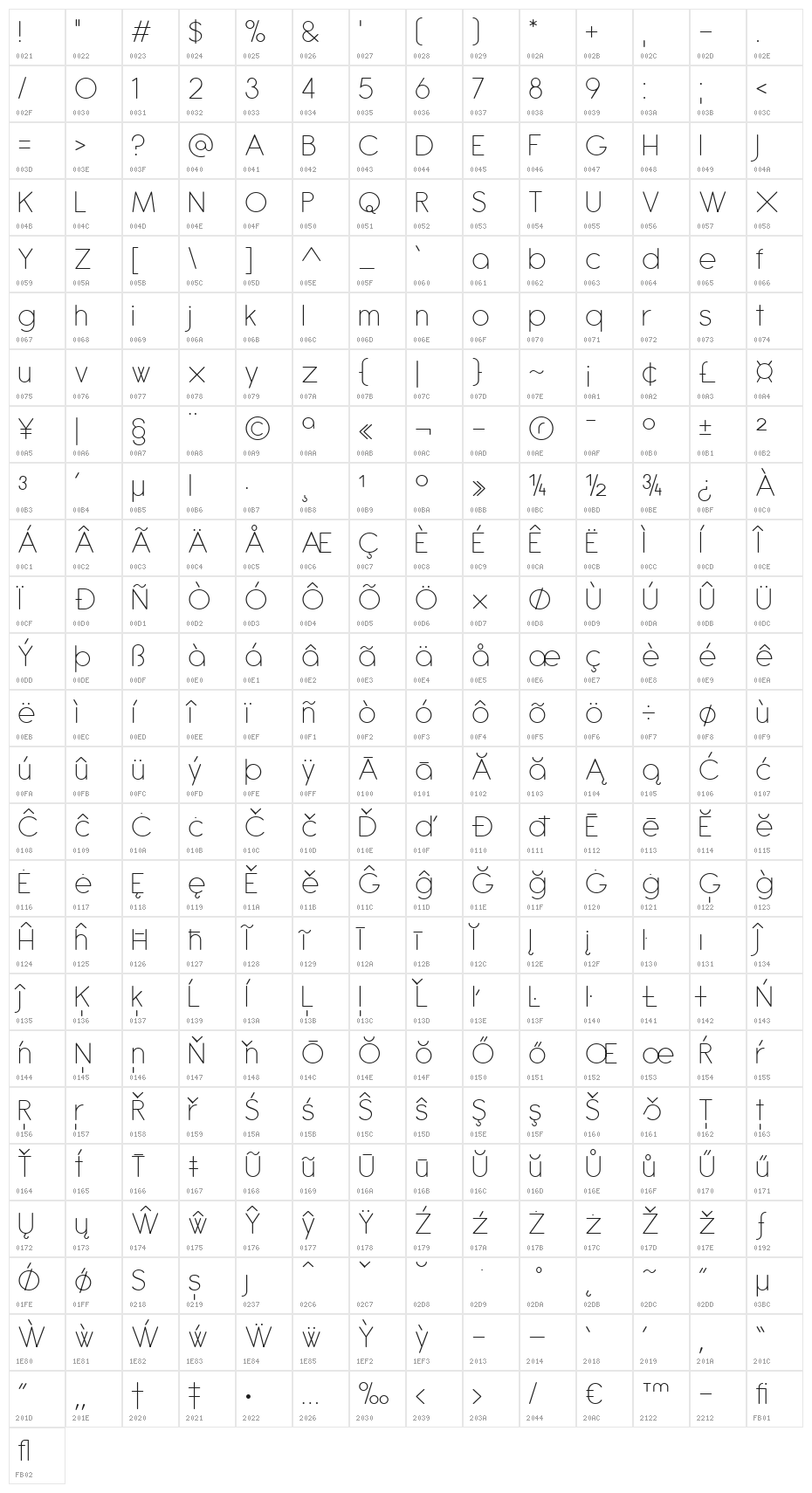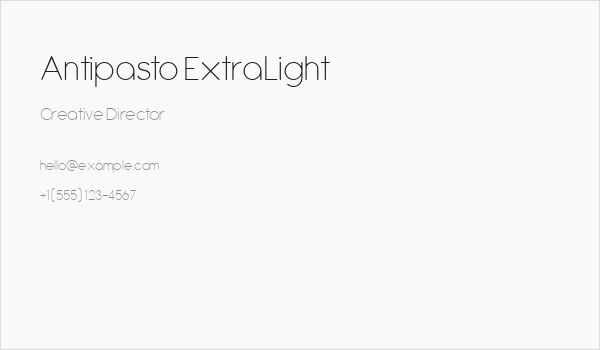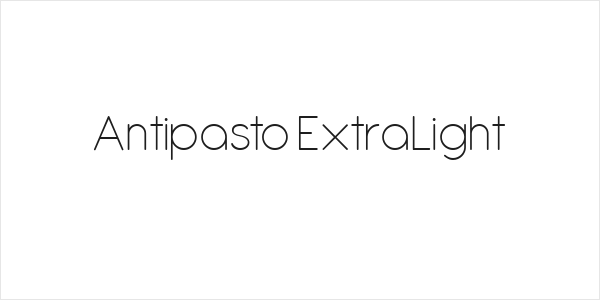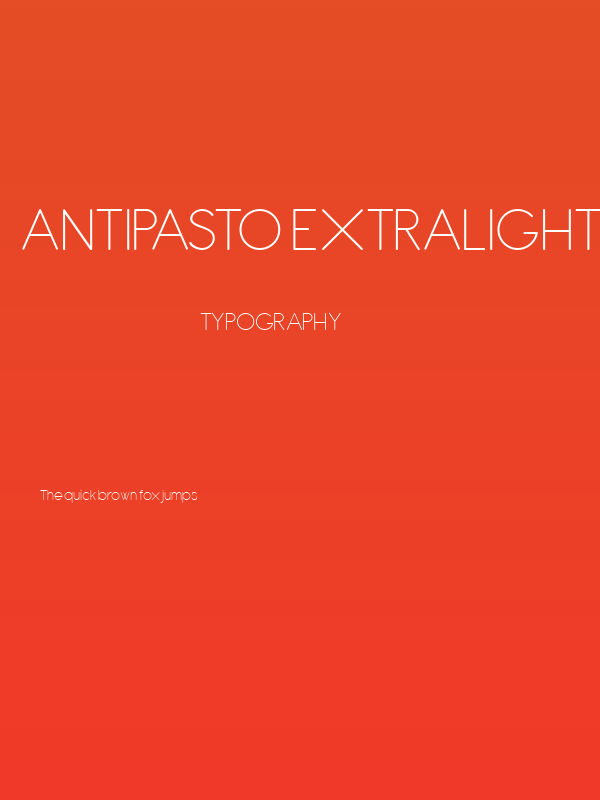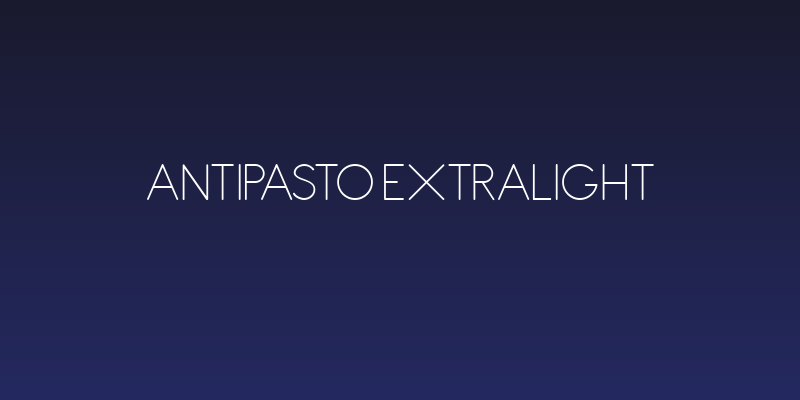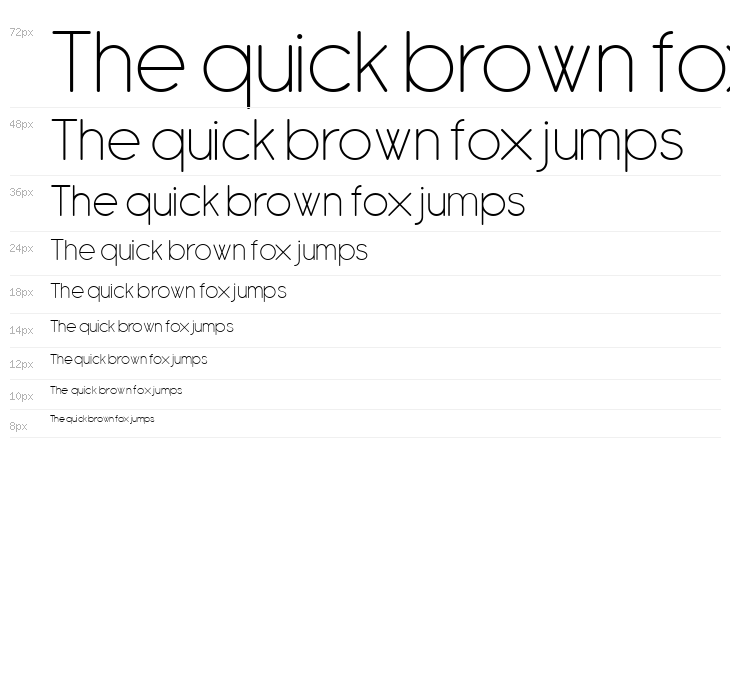
Antipasto ExtraLight Font
Antipasto ExtraLight Description
This font features a clean and modern design with a geometric structure. The characters are evenly spaced, providing a balanced and harmonious appearance. Its thin strokes and minimalistic style make it suitable for contemporary design projects. The uppercase and lowercase letters maintain a consistent height, enhancing readability. The numerals are clear and distinct, while the special characters are elegantly integrated, offering versatility for various applications.
Proposed ProjectsIdeal for branding, digital interfaces, minimalist posters, and editorial design.